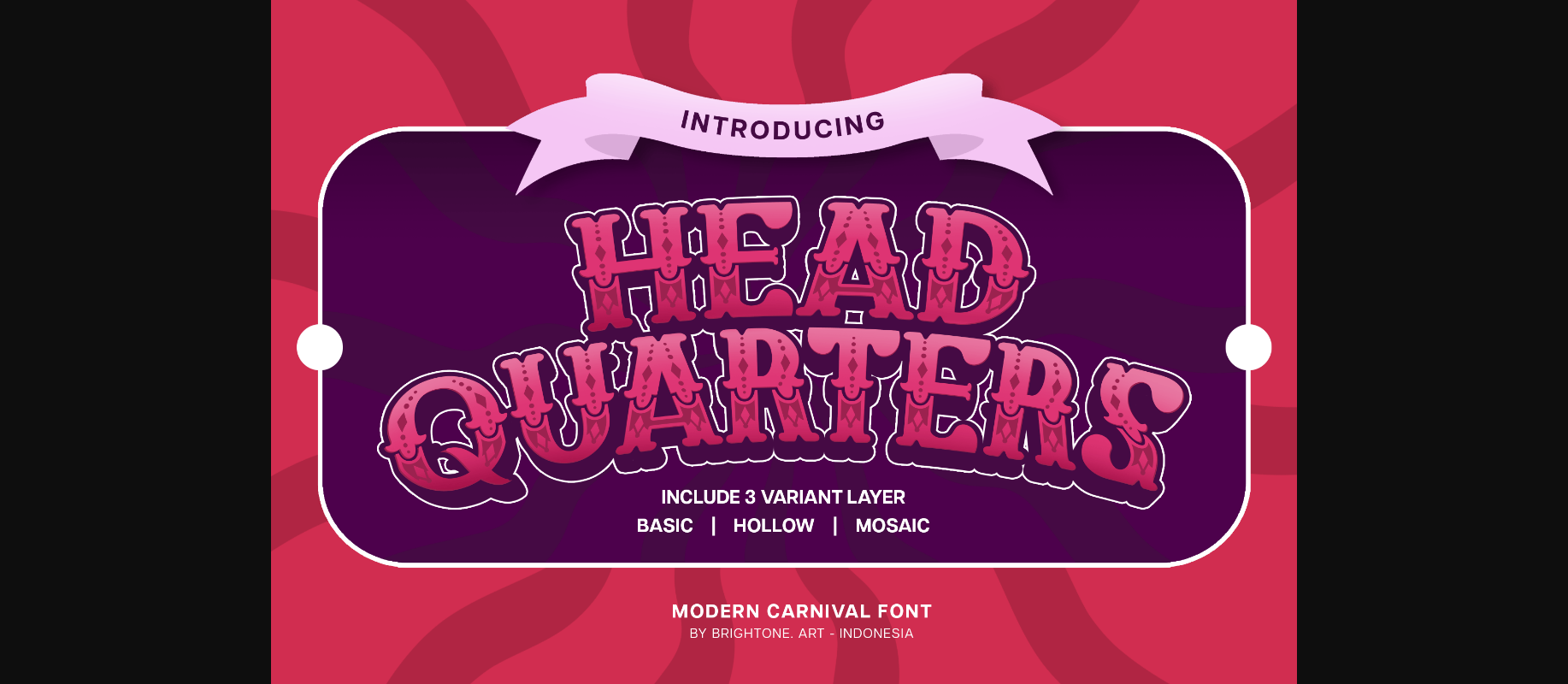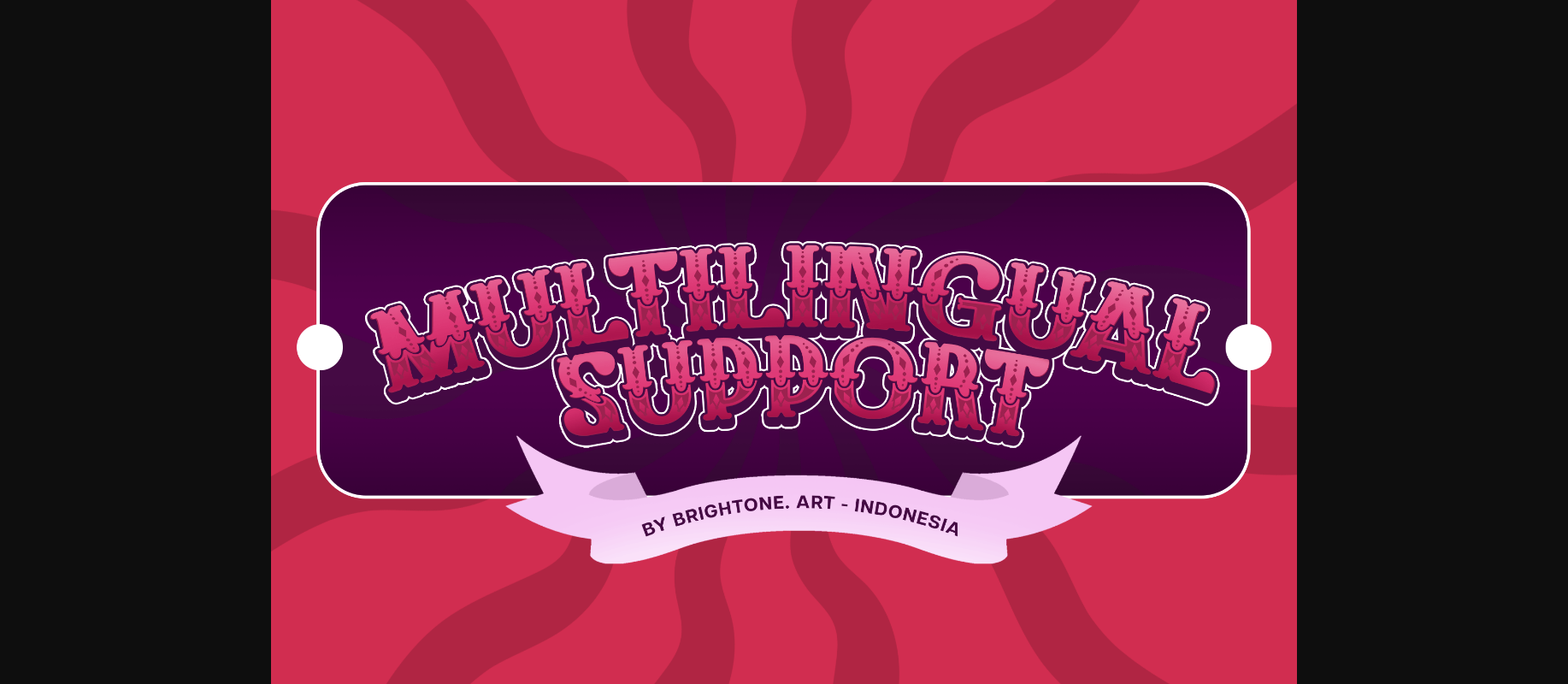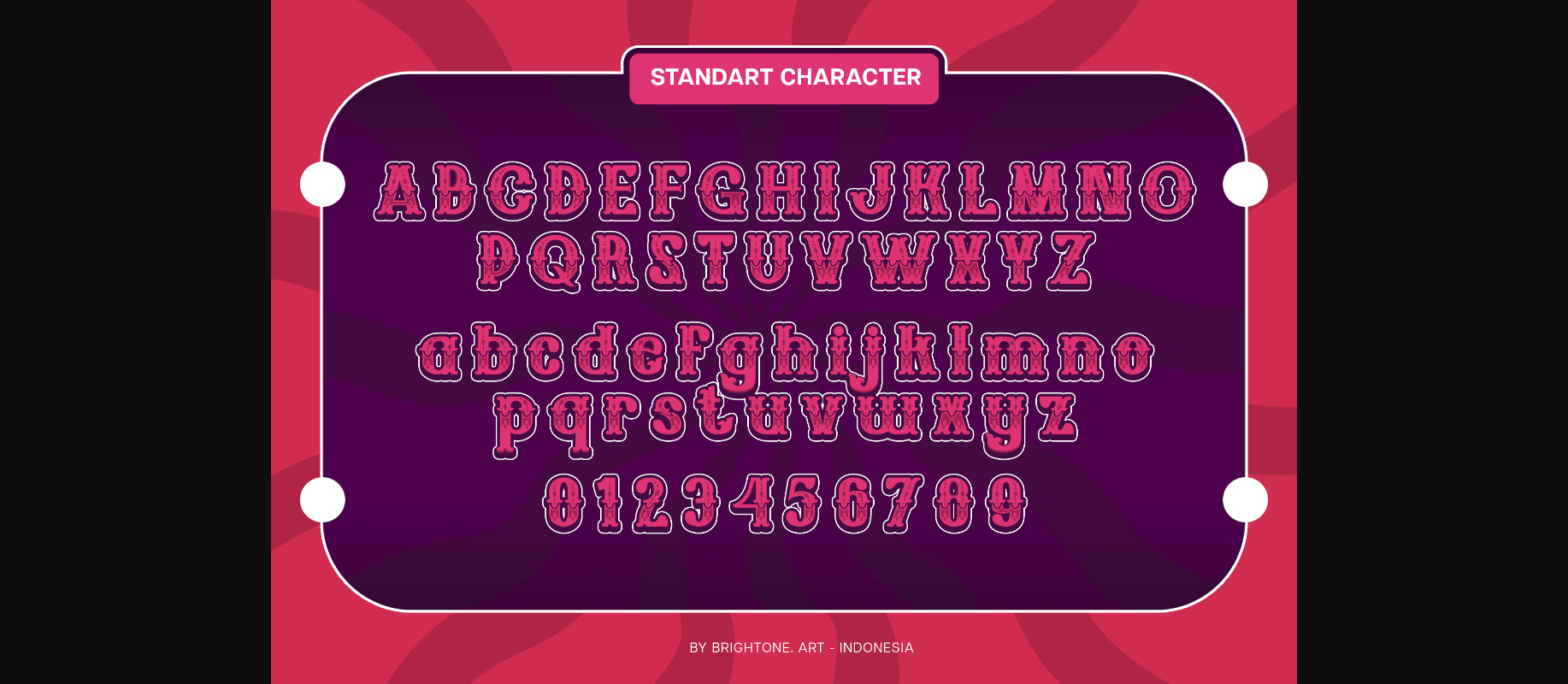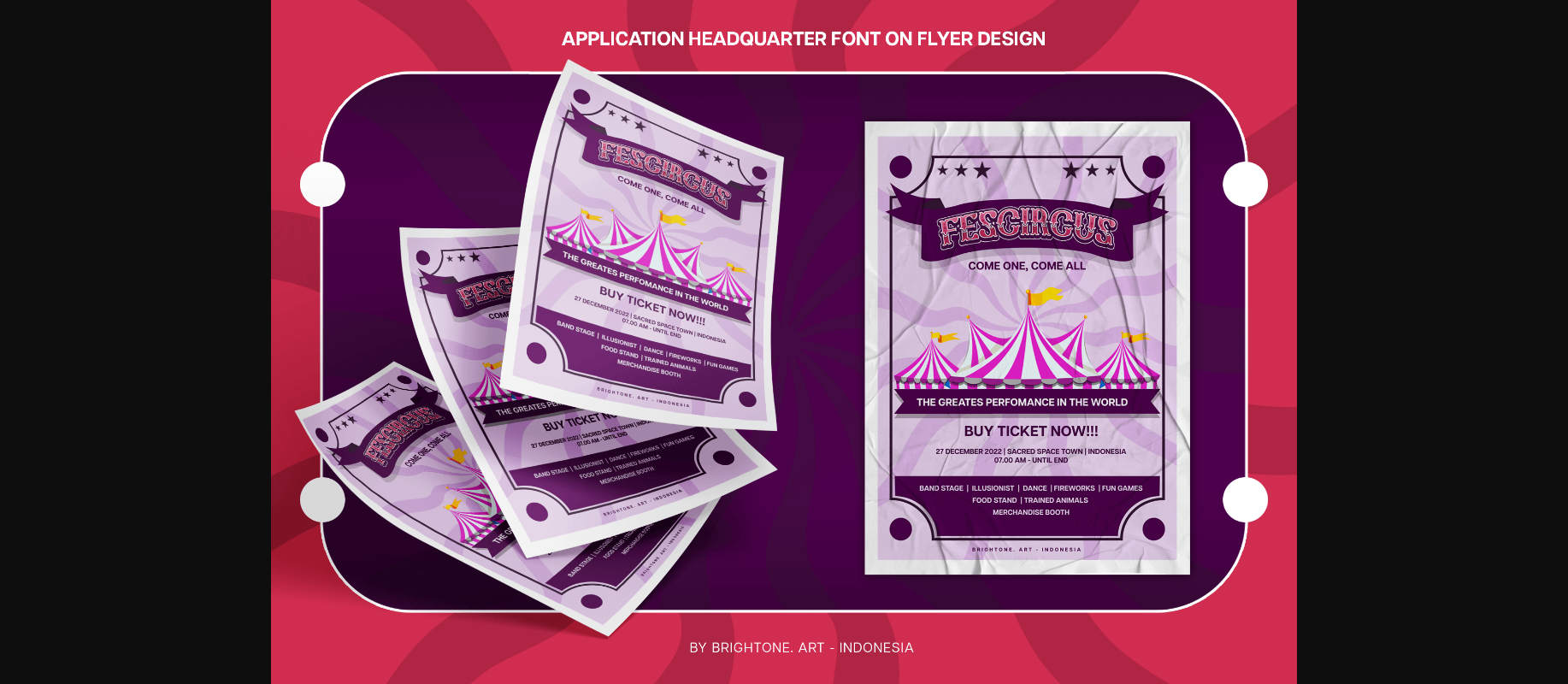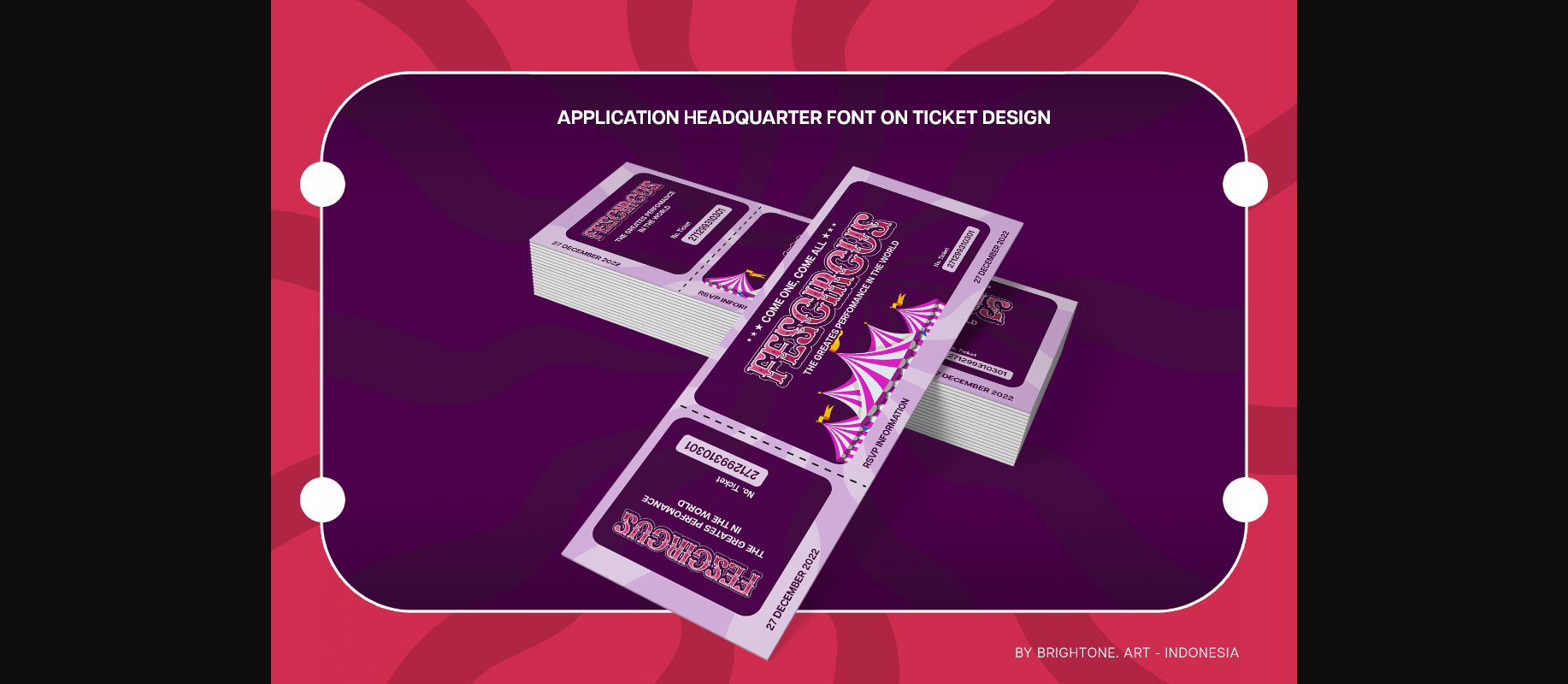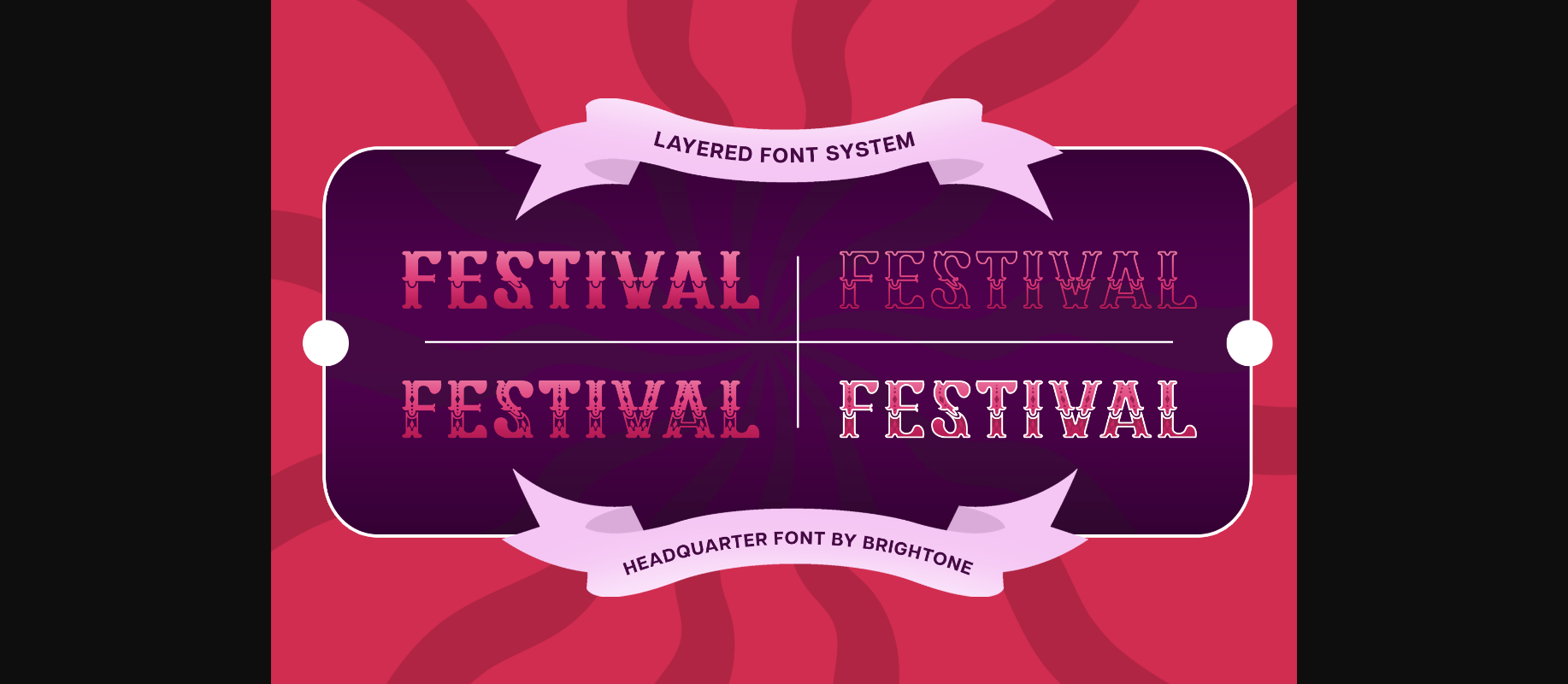
Headquarters Font
About Headquarters Font
Headquarters is a bold decorative serif font with a carnival style and unique touch. This font is a perfect choice for vintage or old-school themes. It is also suitable for modern designs such as magazine headlines or advertisement headlines. Because of the bold body, this font has a strong impression.